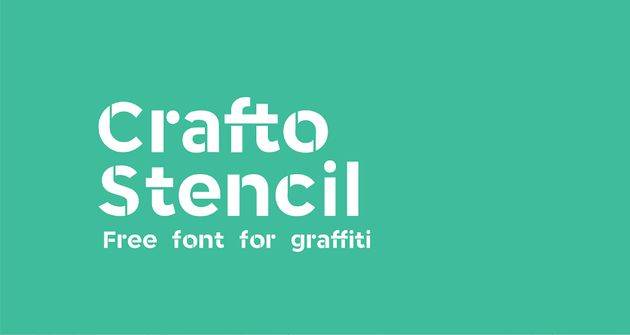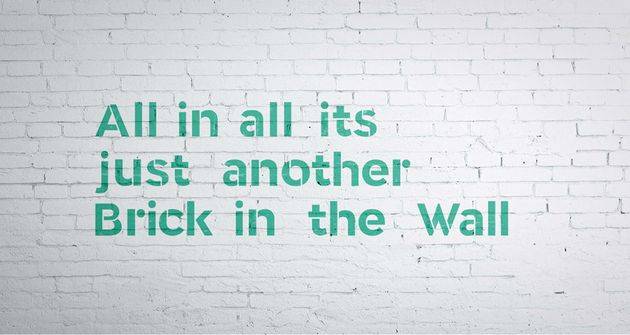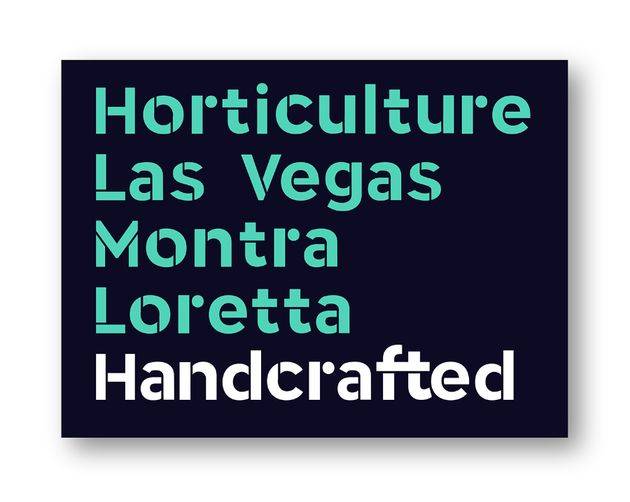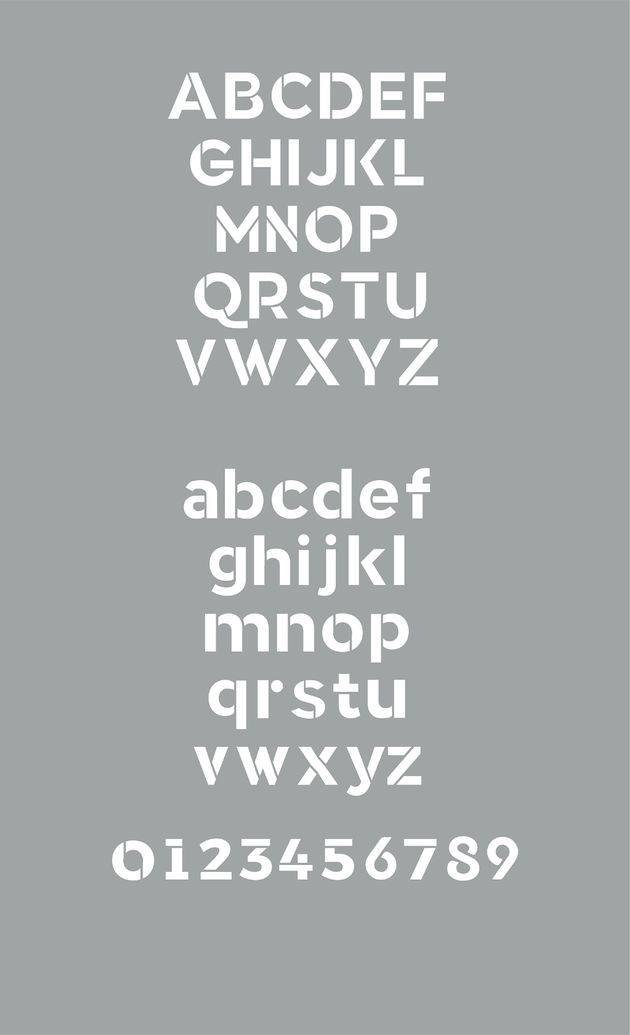
Crafto Stencil is a bold, modern sans serif typeface characterized by its stencil-style breaks that add a dynamic and industrial feel. With its strong contrast between solid shapes and cut-out sections, it offers a unique blend of geometric precision and visual intrigue, making it ideal for eye-catching headlines, logos, and branding that seeks a contemporary and edgy vibe. This font works especially well in creative and urban contexts where a striking, memorable look is desired.
Crafto Stencil Typeface
About Crafto Stencil Typeface